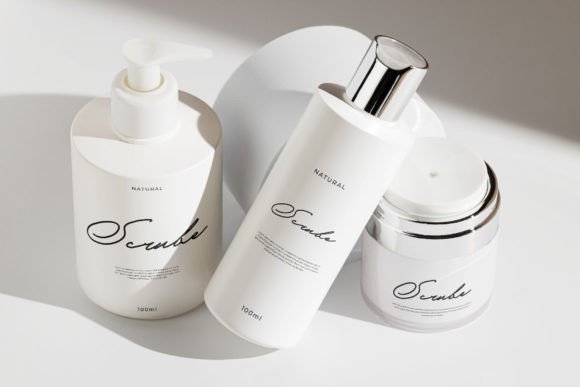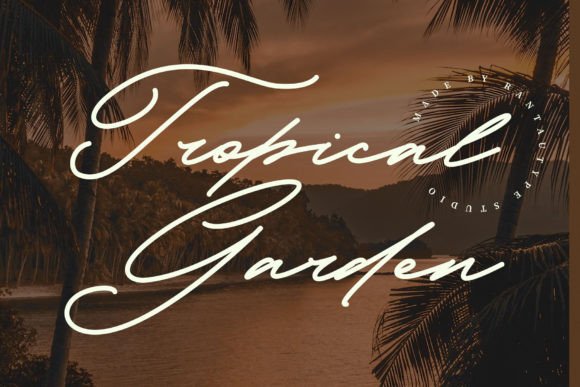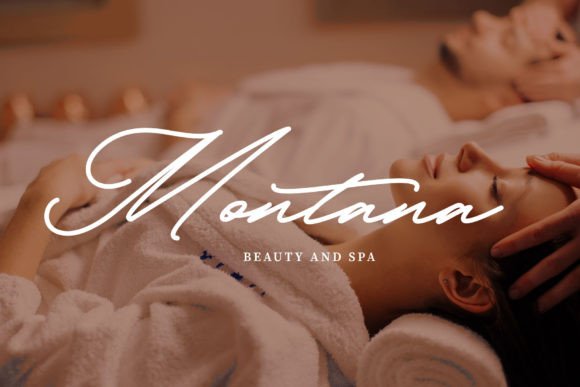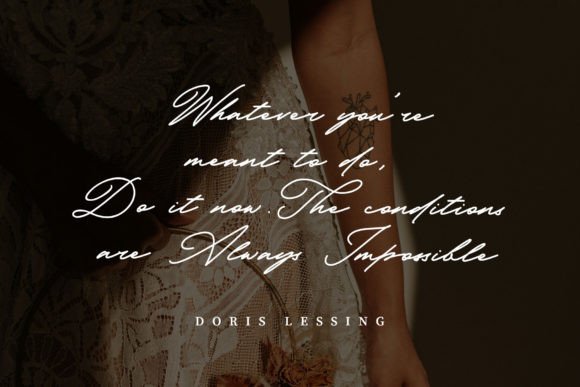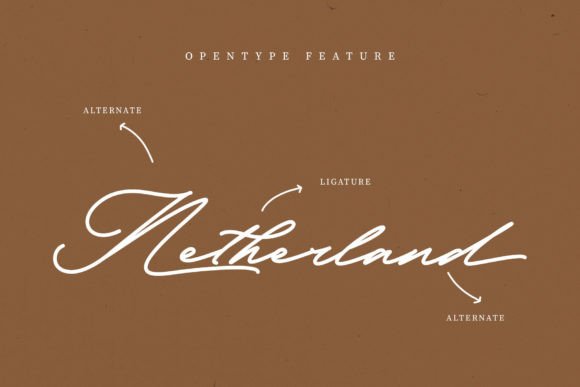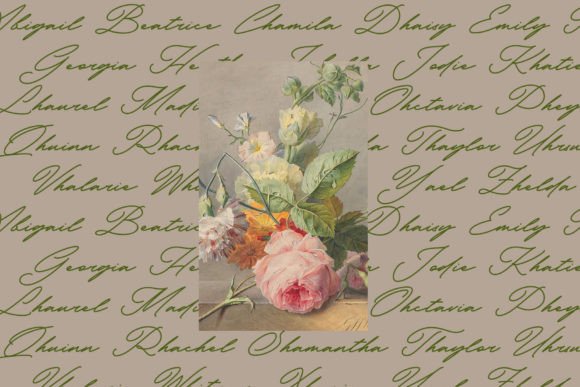
The Magical World of Brityna Font: A Designer’s Delight
I still remember the frustration of working on a design project, hours spent searching for the perfect font, only to come up empty-handed. My client wanted a script font that exuded elegance and sophistication, but everything I found seemed either too bland or too over-the-top. That’s when I stumbled upon Brityna Font, a magical script font that has since become my go-to for a wide range of creative projects.
An Honest Review of Brityna Font
So, what makes Brityna Font so special? Let’s dive into the good stuff! 😊
- ✨ Elegant and Refined: Brityna Font boasts a sophisticated, elegant feel that’s perfect for high-end designs, wedding invitations, or luxury branding.
- ✅ Versatile: Whether you’re creating social media graphics, blog posts, or DIY projects, Brityna Font adapts seamlessly to various design contexts.
- 🎨 Highly Customizable: With a range of OpenType features, glyphs, and stylistic alternates, you can tailor Brityna Font to fit your unique design vision.
Of course, no font is perfect, and Brityna Font has a few minor quirks:
- 🤔 Limited use in body text: While Brityna Font is stunning in headlines and titles, it may not be the best choice for lengthy body text due to its script nature.
- ⚠️ Some characters may require manual kerning: As with many script fonts, you may need to adjust kerning for certain character combinations to achieve optimal results.
The Story Behind Brityna Font
Brityna Font was crafted with passion and dedication by a talented type designer. Inspired by the beauty of handwritten calligraphy, the designer aimed to create a font that would bring a touch of magic to creative projects. With its elegant lines, flowing curves, and attention to detail, Brityna Font has become a beloved choice among designers and crafters alike.
| Is Brityna Font suitable for body text? | While Brityna Font is stunning in headlines and titles, it may not be the best choice for lengthy body text due to its script nature. |